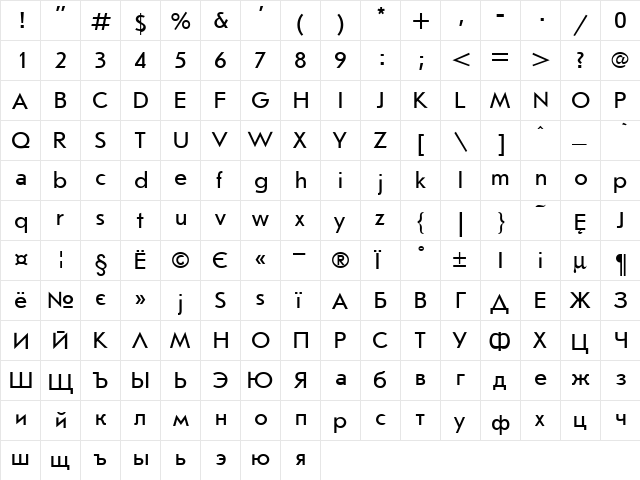
Journal Rub Regular
Design Context for Journal Rub Typeface
Journal Rub is a composed and adaptable typeface that performs quietly and consistently across a wide range of design contexts.